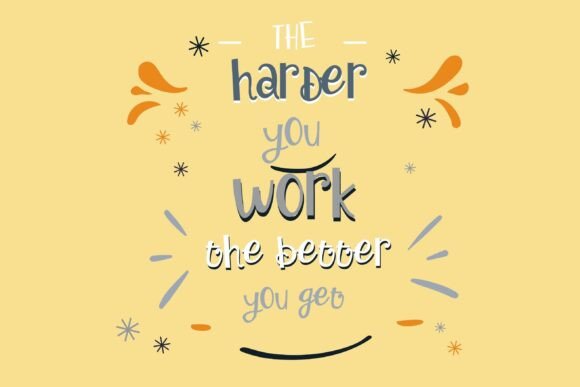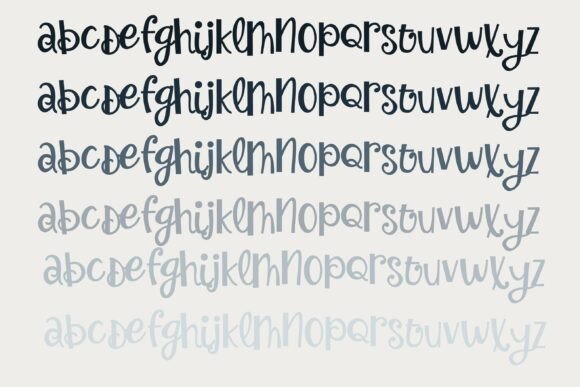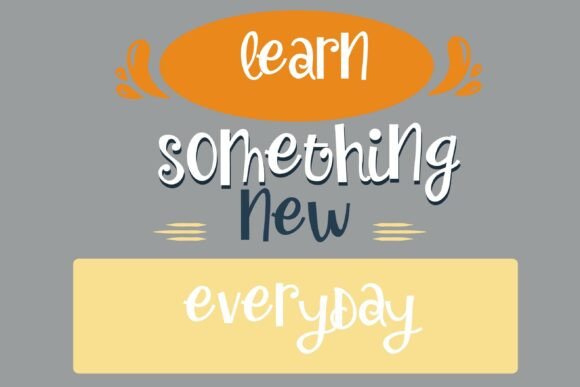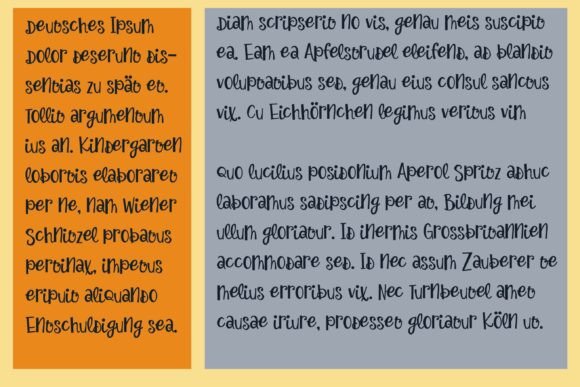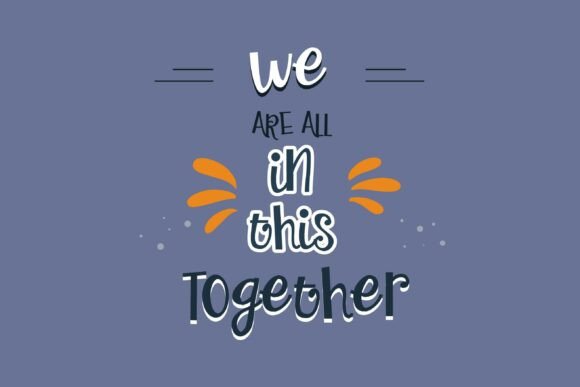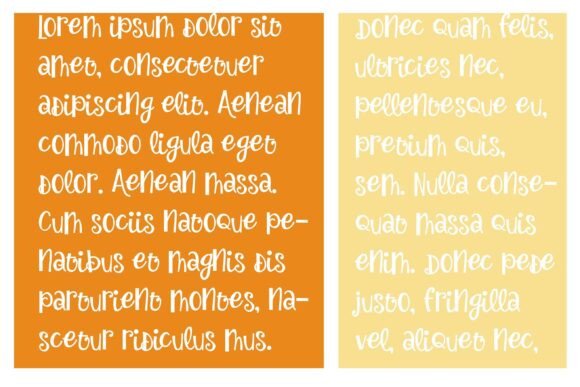
Ignite Your Designs with Electric Slide Font: A Spark of Creative Energy
Are you tired of using the same old fonts in your designs? Look no further than Electric Slide, a vibrant hand-crafted font that’s sure to add a spark of creative energy to your work. This exceptional typeface is designed to capture the high-voltage spirit of a quick-sketch artist, making it perfect for designers and crafters who want to add a touch of personality to their designs.
The Unique Personality of Electric Slide
Electric Slide features a rhythmic, casual script with a bouncy baseline and organic, monolinear strokes that radiate unrefined human warmth. Its unique personality is defined by expressive loops and a “shaky,” high-energy texture that gives every word a sense of live-wire movement. This font is not just a collection of letters – it’s an experience that brings a sense of professional artisanal beauty and legendary creative spark to your designs.
Perfect for Modern Lifestyle Branding and More
Electric Slide is an exceptional choice for a variety of design applications, including modern lifestyle branding, high-impact social media headers, artisanal café menus, and creative youth-focused event graphics. Its bold and energetic personality makes it perfect for headlines, titles, and any other design element that needs to make a statement.
What Sets Electric Slide Apart
So, what sets Electric Slide apart from other fonts? Here are just a few things that make it special:
• Hand-crafted with love: Electric Slide is a hand-crafted font that’s been carefully designed to capture the imperfections and uniqueness of human handwriting.
• High-energy texture: The font’s “shaky” texture gives every word a sense of live-wire movement, adding a touch of excitement and energy to your designs.
• Expressive loops: Electric Slide’s expressive loops add a touch of personality to every letter, making it perfect for designs that need a little extra flair.
• Monolinear strokes: The font’s monolinear strokes give it a sense of simplicity and elegance, while also adding to its overall energy and movement.
How to Use Electric Slide in Your Designs
Electric Slide is a versatile font that can be used in a variety of design applications. Here are just a few ideas to get you started:
• Branding and logos: Use Electric Slide to create bold and eye-catching logos that make a statement.
• Social media graphics: Add a touch of personality to your social media headers and graphics with Electric Slide’s high-energy texture.
• Menus and packaging: Use Electric Slide to add a touch of artisanal charm to your menus, packaging, and other marketing materials.
• Event graphics: Electric Slide is perfect for creating bold and eye-catching event graphics, such as posters, flyers, and invitations.
Tips for Getting the Most Out of Electric Slide
Here are just a few tips for getting the most out of Electric Slide:
• Experiment with different colors: Electric Slide looks great in a variety of colors, so don’t be afraid to experiment and find the perfect hue for your design.
• Play with font sizes: Electric Slide is a versatile font that can be used at a variety of font sizes, from large headlines to smaller body text.
• Add some texture: Consider adding some texture to your design to give it an extra layer of depth and interest.
Overall, Electric Slide is a unique and versatile font that’s perfect for designers and crafters who want to add a touch of personality to their designs. Its high-energy texture, expressive loops, and monolinear strokes make it a standout font that’s sure to make a statement. So why settle for a boring, generic font when you can ignite your designs with Electric Slide?